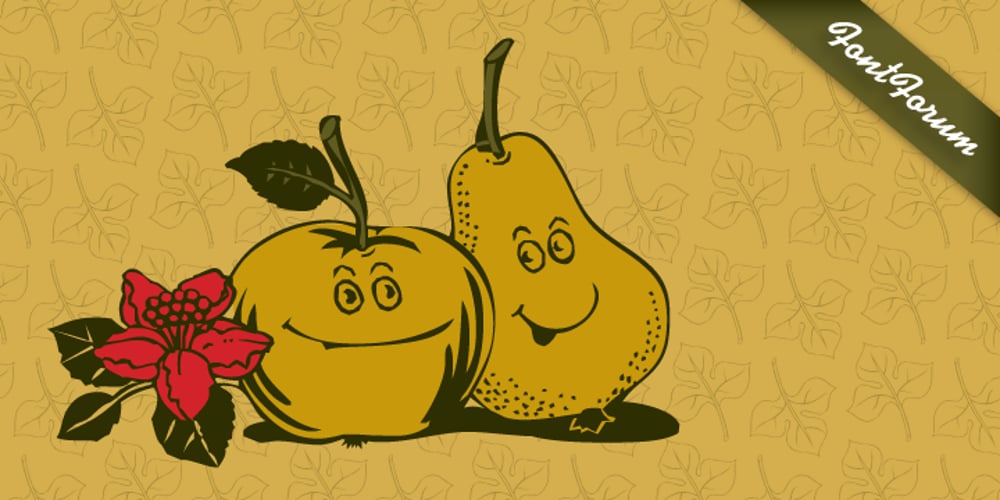
Funny Nature Font Family was designed by Frank K. Lüdicke and published by URW Type Foundry. Funny Nature contains 1 styles and family package options. Funny Nature is not a typeface but a collection of small, comic-like symbols. Lüdicke used to work often for a supplier of gardening equipment etc. He had to come up with new, original and vivid ideas for the design of catalogues and ads. He designed Funny Nature, a wonderful collection of illustrations. Can you hear the humming and buzzuing, can you smell the flowers?